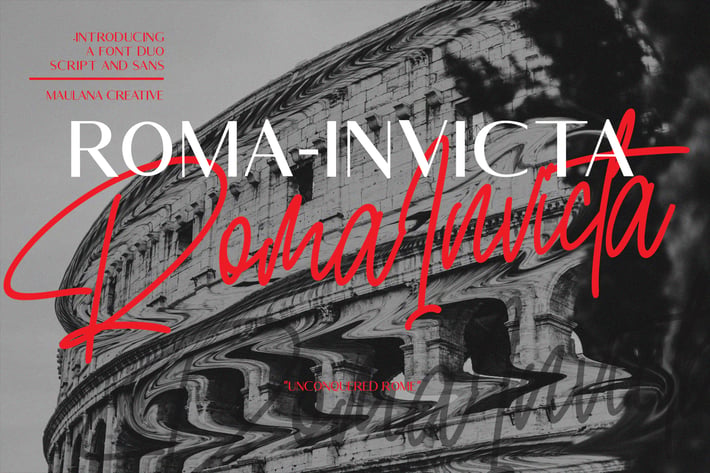
Roma Invicta Font Duo Script Sans
Give your designs an authentic handcrafted feel. "Roma Invicta Font Duo Script Sans" is perfectly suited to signature, stationery, logo, typography quotes, magazine or book cover, website header, clothing, branding, packaging design and more.